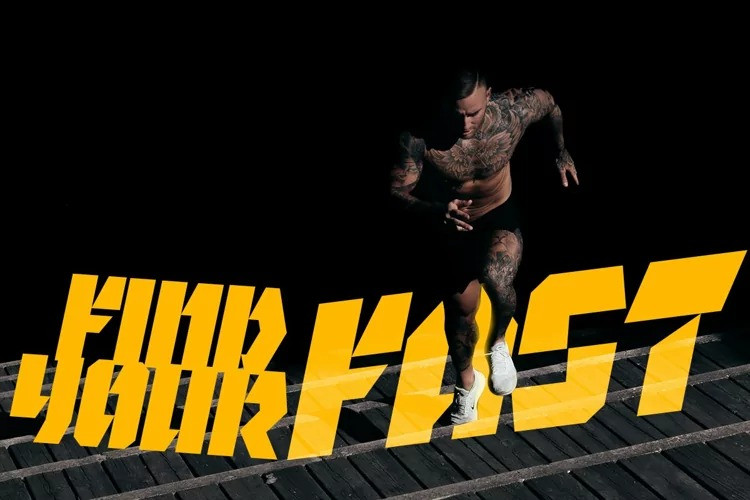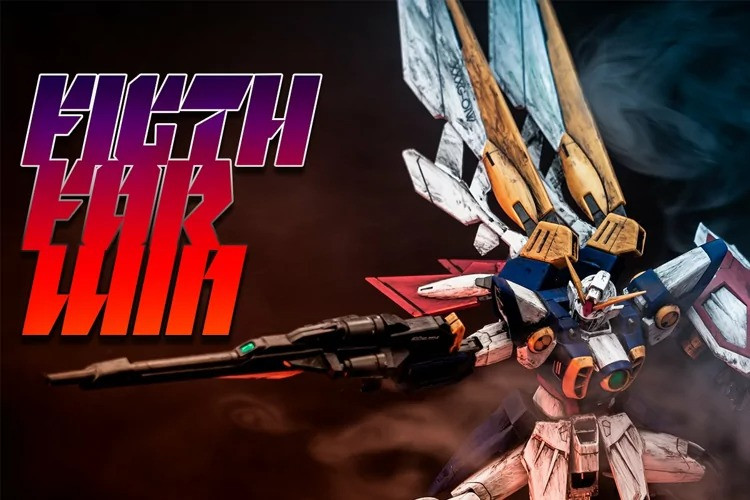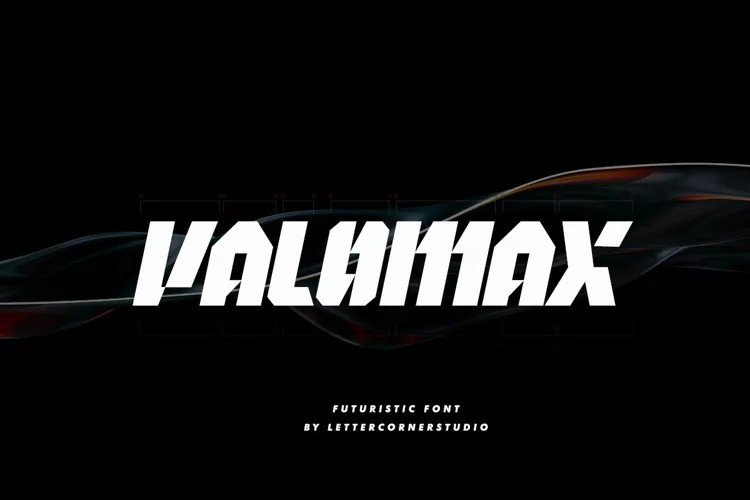
Valomax Font
It’s time to see our impressive font, Valomax presents, Valomax, the biggest, baddest, boldest, display font with a modern futuristic scifi theme. Space Miner grabs your customer’s attention and won’t let it go. it is perfect for titles, headliner, head turner and many more.
Note Please keep in mind that this is a display font. It is intended to be used as a headings, title, branding, logo, wordmark and other application rather than typing a body text.